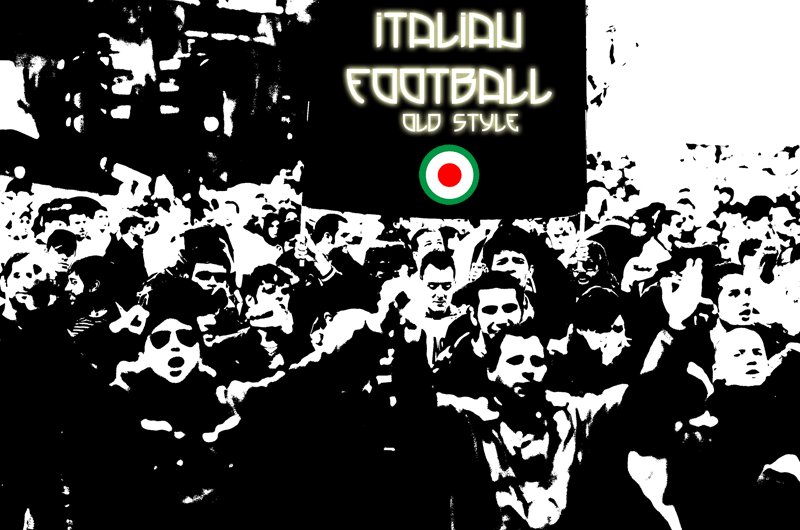
This typographical font was created to celebrate the victory of Italian football team at the World Cup 1934 played in Italy. The lines and the constructions are retro and come from the style and the architecture of the 1930's years in Italy. |